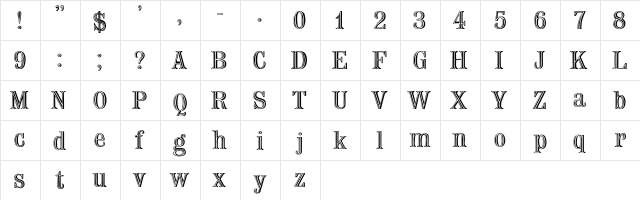
Powell Regular Font Preview
Powell Regular
Powell Regular Font Details
Design Context for Powell Typeface
Powell is a composed and adaptable typeface that performs quietly and consistently across a wide range of design contexts.